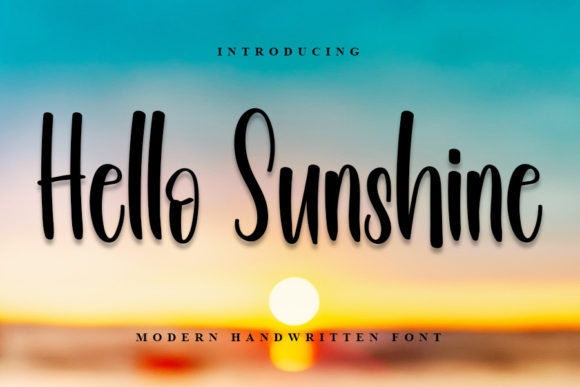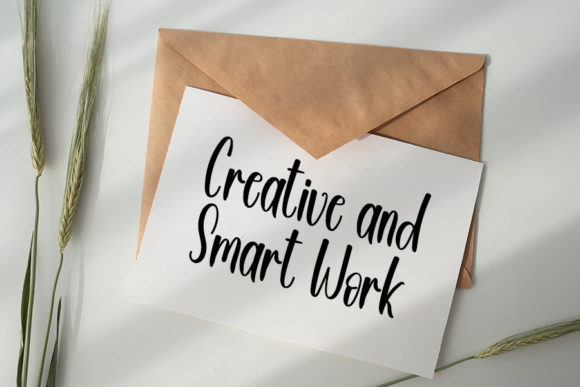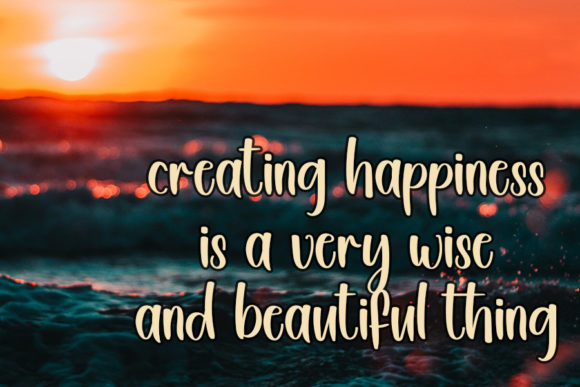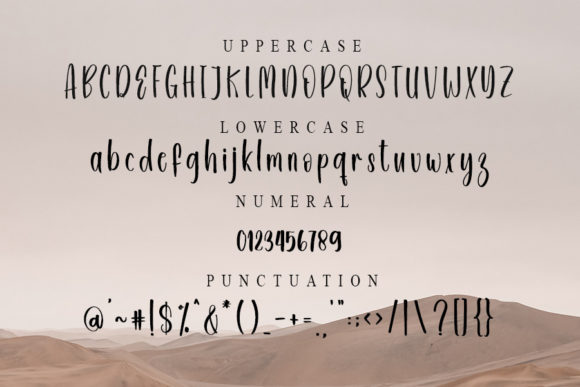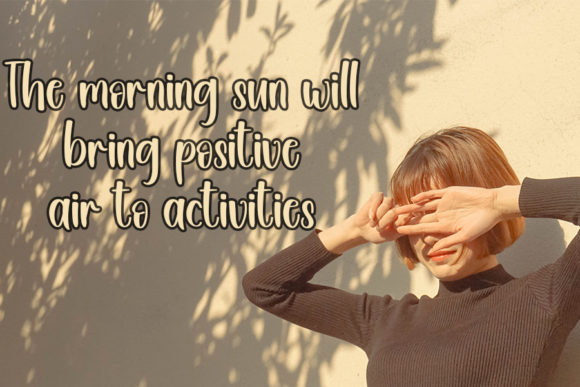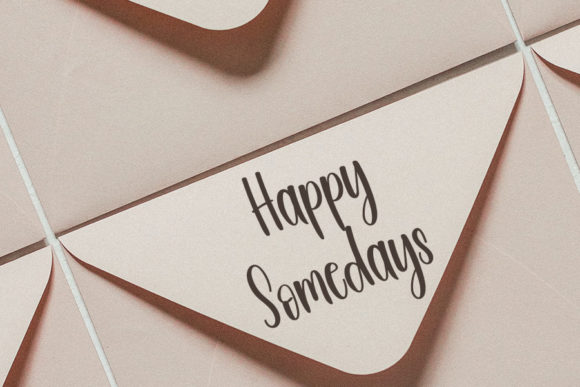
Hello Sunshine Font
About Hello Sunshine Font
Hello Sunshine is a lovely script font. It maintains its flowing and joyful influences while feeling elegant and fresh. Get inspired by it and bring your projects to the highest levels!